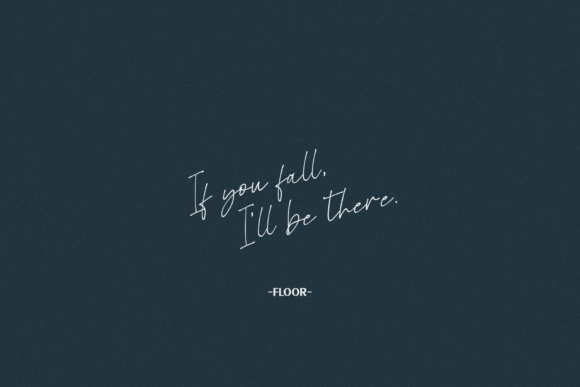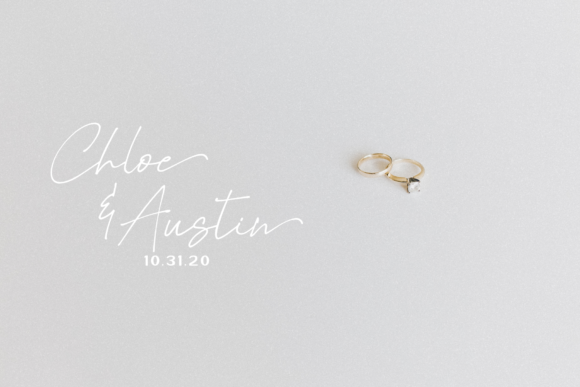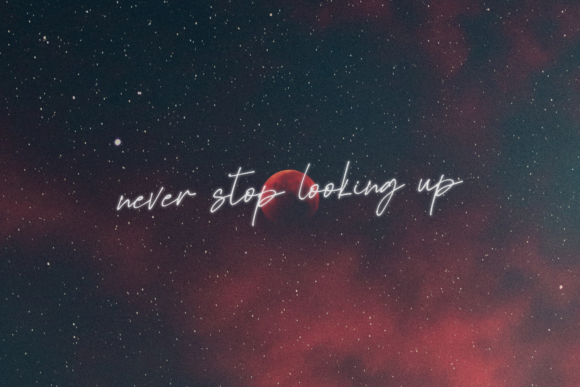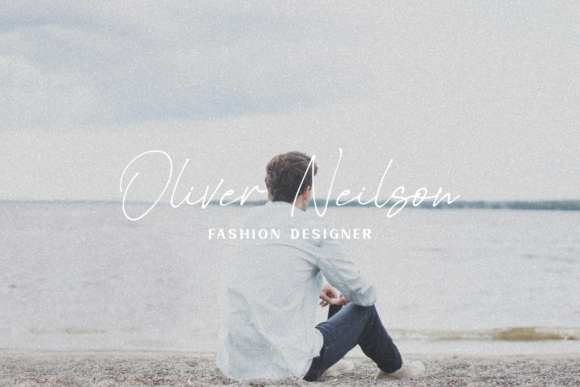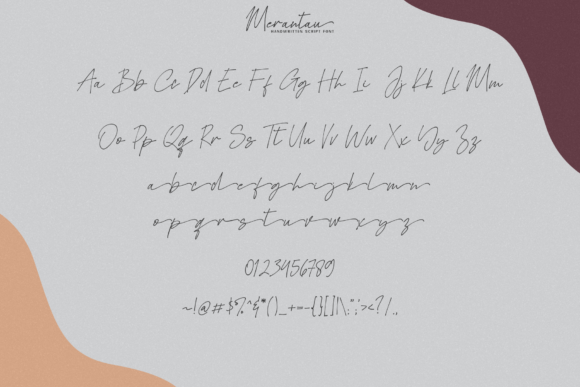
Merantau Font
About Merantau Font
Merantau is a beautiful handwritten script font. It comes with many alternates that make the font look beautiful and elegant.